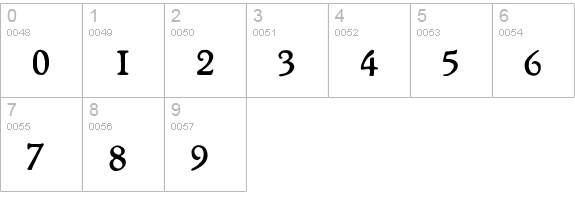
Introducing TripoliBold, the perfect blend of elegance and boldness. This captivating font is designed to make a statement and leave a lasting impression. With its sleek and modern design, TripoliBold is sure to elevate any project to new heights. Featuring clean lines and sharp edges, TripoliBold exudes confidence and sophistication. Its thick and prominent strokes command attention, making it ideal for headlines, titles, and branding materials. Whether you're creating a logo, designing a magazine layout, or crafting a poster, TripoliBold will effortlessly convey your message with power and style. One of the most remarkable features of TripoliBold is that it is freely available to download at FontsMarket.com. This means that you can access this stunning font without any cost, making it a valuable asset for both personal and commercial projects. It's rare to find such a high-quality font that is not only visually appealing but also accessible to all. With TripoliBold, your creativity knows no bounds. Its versatility allows it to seamlessly adapt to various design styles, from minimalist to bold and extravagant. The distinct character and impact of TripoliBold will captivate your audience and create a lasting impression. Whether you're a graphic designer, a web developer, or an aspiring artist, TripoliBold is an essential addition to your font collection. Its timeless design and free availability make it an invaluable resource for any creative endeavor. So why wait? Download TripoliBold today from FontsMarket.com and embark on a journey of limitless possibilities in typography.